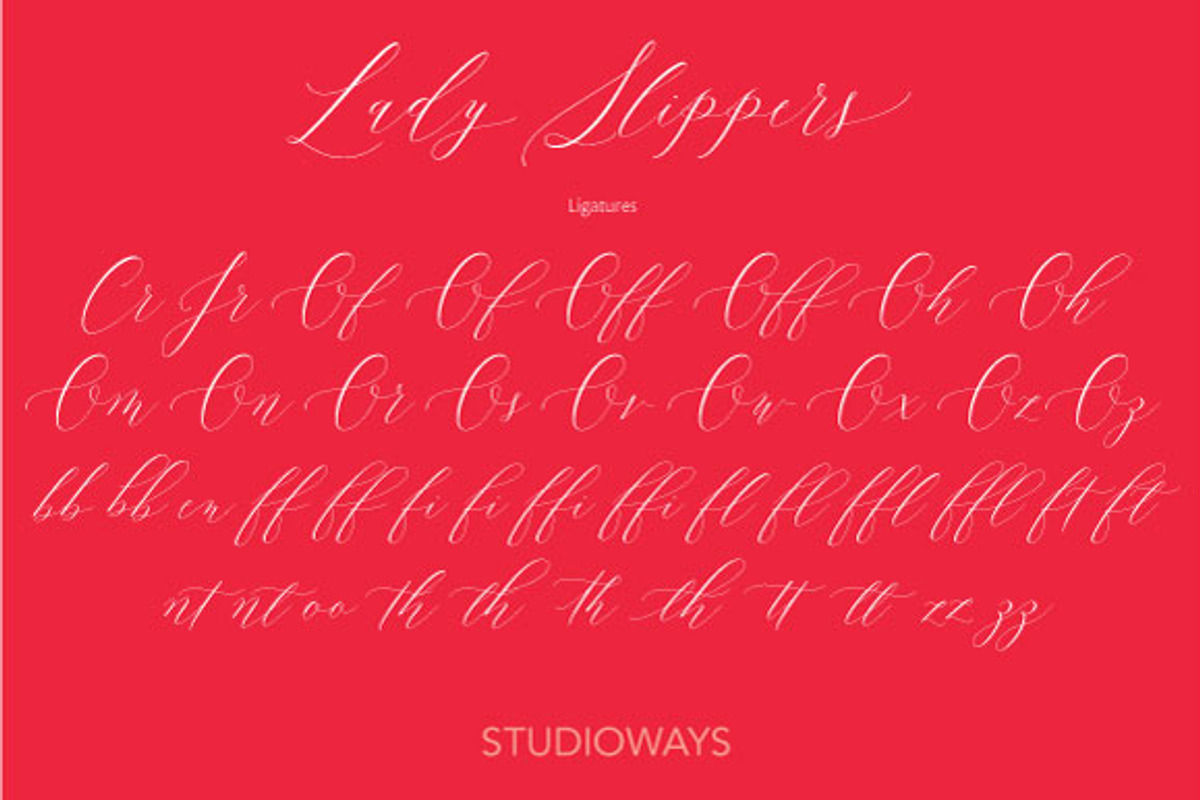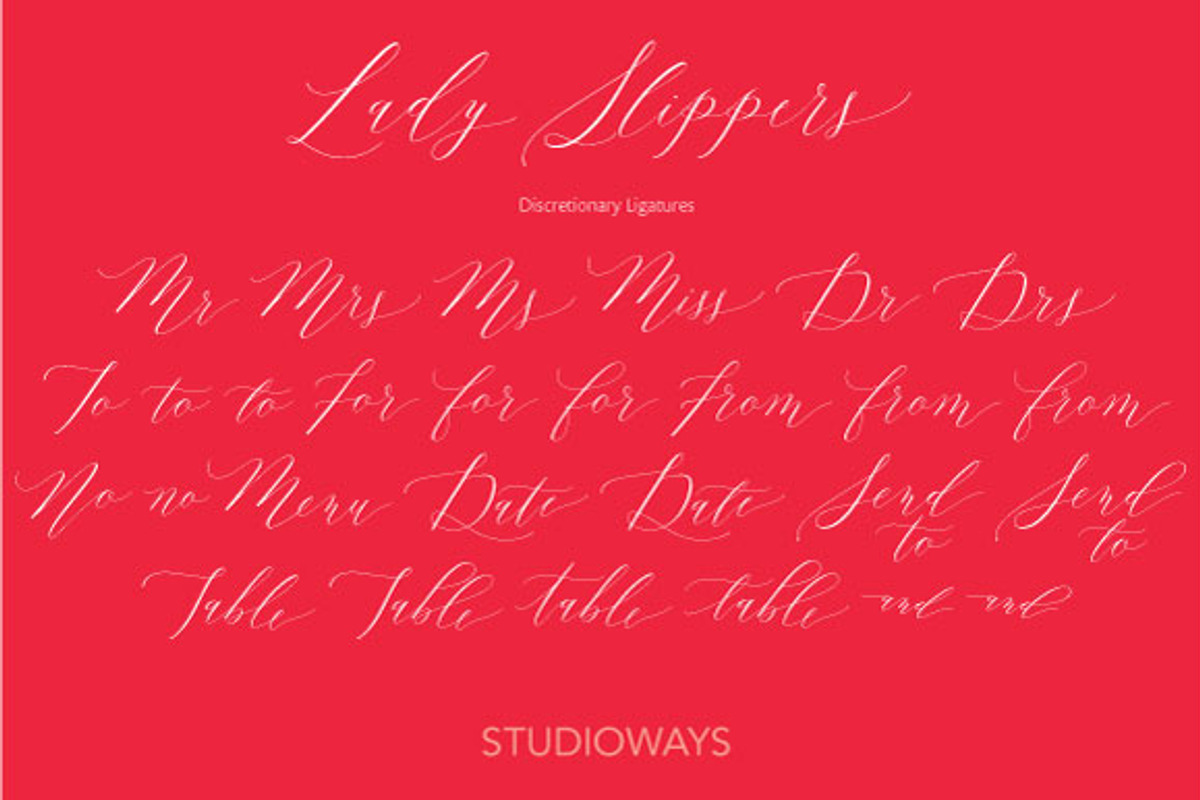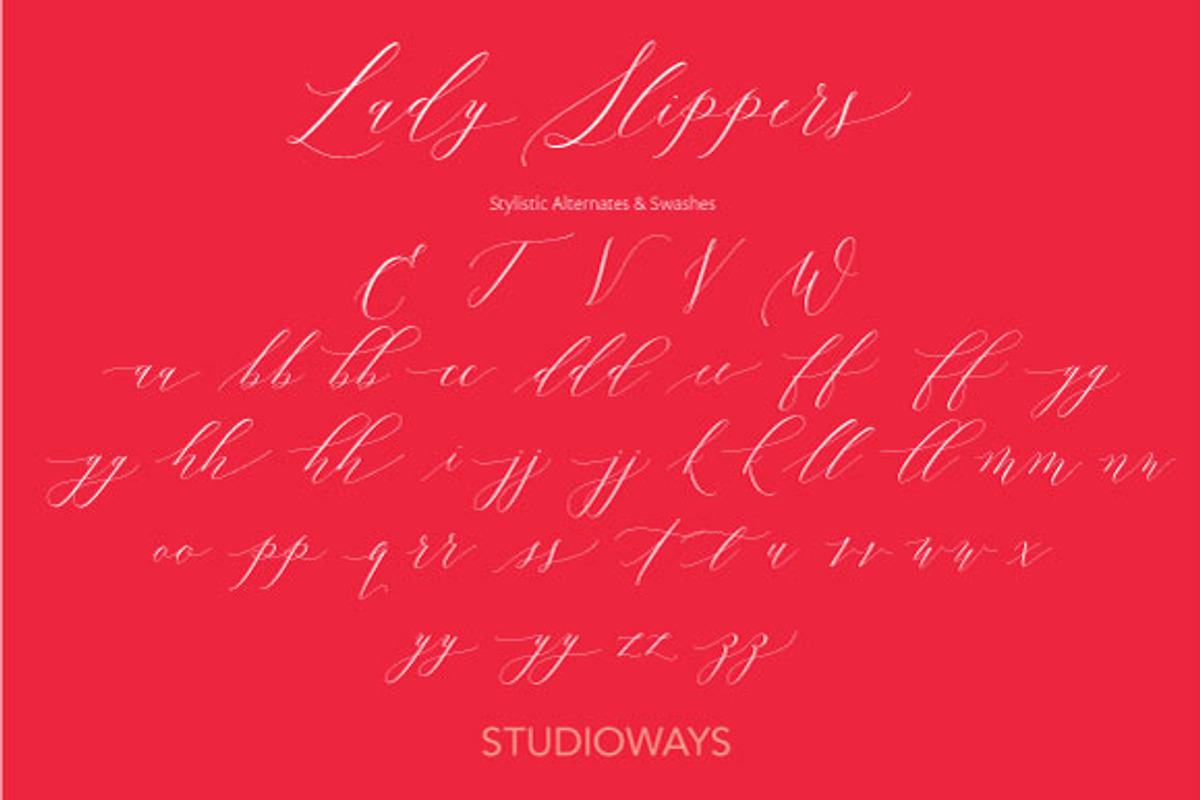
Lady Slippers
Welcome to Studioways! We are Eliza Gwendalyn, calligrapher, and Jim Lyles, type designer. We are so proud to offer our first typeface, Lady Slippers, a delicate and beautiful typeface resembling one of my calligraphic styles! This tricked out version of Lady Slippers includes many OpenType bells and whistles including, swashes, ligatures, discretionary ligatures and stylistic alternates. Enabling them makes it possible to create beautiful seemingly hand-written calligraphy designs. We are so excited to make this Lady Slippers available to you! She supports an extensive list of languages including, Croatian, Czech, Danish, Dutch, English, Estonian, Finnish, French, German, Hungarian, Irish, Italian, Latvian, Lithuanian, Norwegian, Polish, Portuguese, Romanian, Serbian, Slovak, Slovenian, Spanish, Swedish, and Turkish.